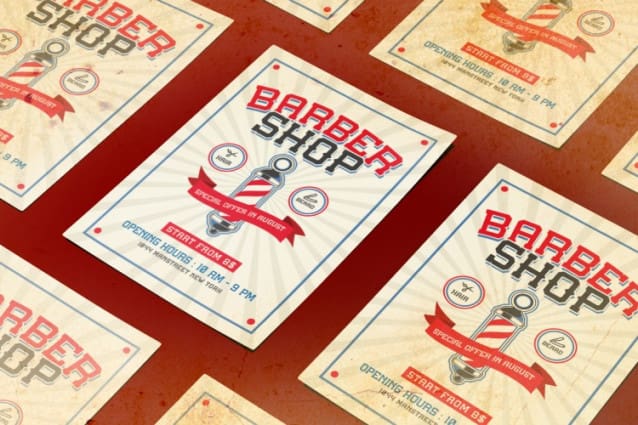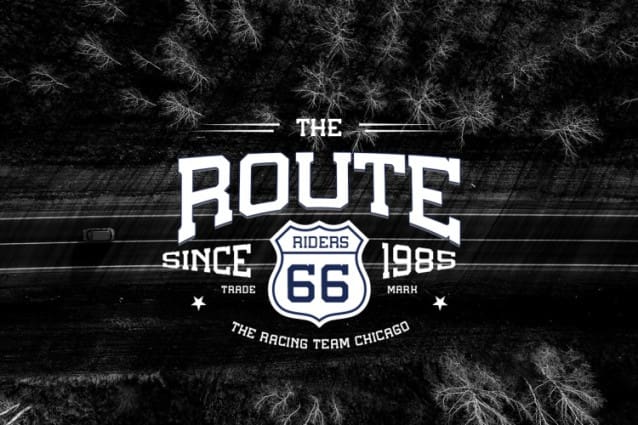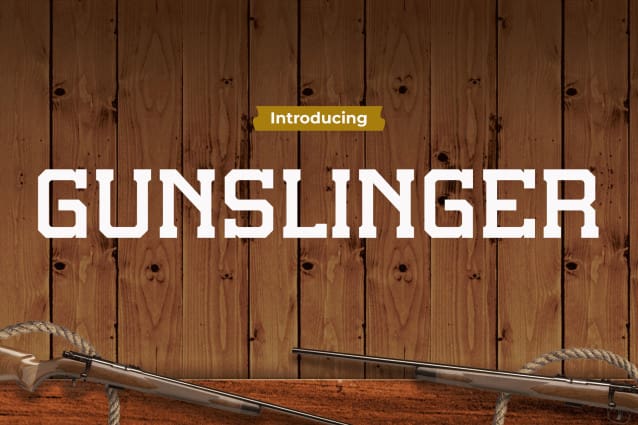
Gunslinger Font
Gunslinger Font, a striking display font tailored for businesses seeking to make a bold statement. Inspired by the rugged spirit of the Wild West, Gunslinger Font exudes strength and character in every letter. Its bold strokes and dynamic curves command attention, making it the perfect choice for logos, signage, and branding materials. Whether you’re crafting designs for a modern startup or a timeless establishment, Gunslinger Font adds a touch of daring flair that sets your brand apart. Elevate your visual identity with GunslingerFont and let your brand speak volumes with every letter.